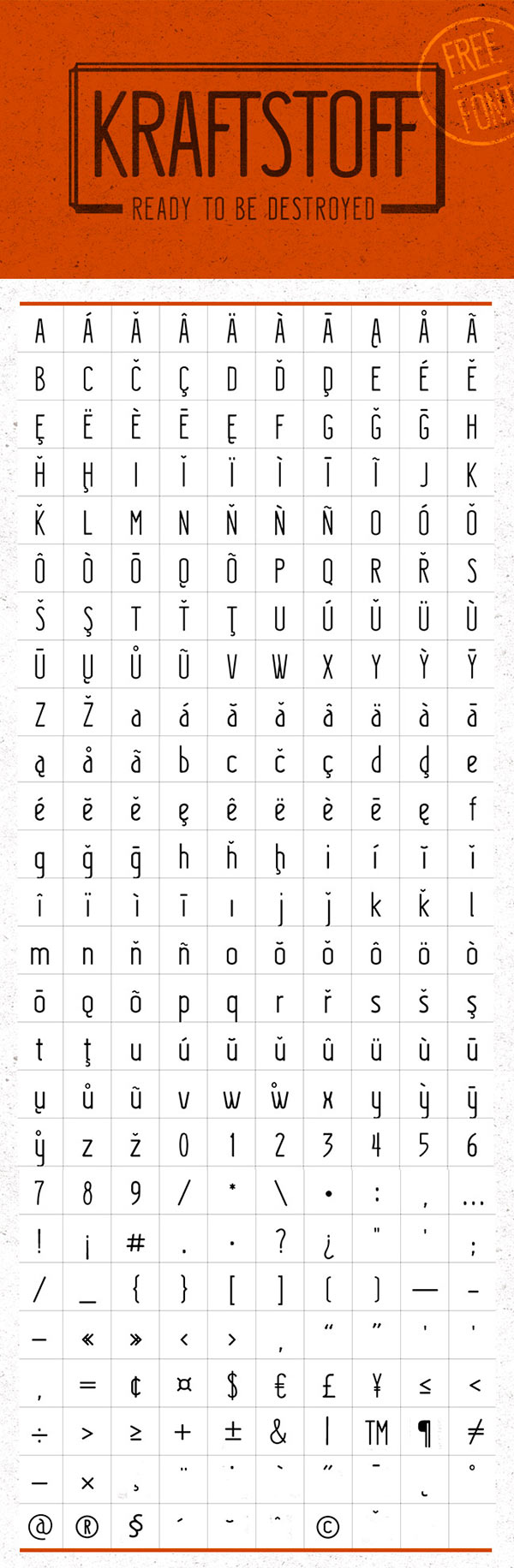
Kraftstoff is a typeface based on antique gas pump meters that you can download for free. This font was designed by Guilherme Schneider, a designer from USA.
Designer: Guilherme Schneider